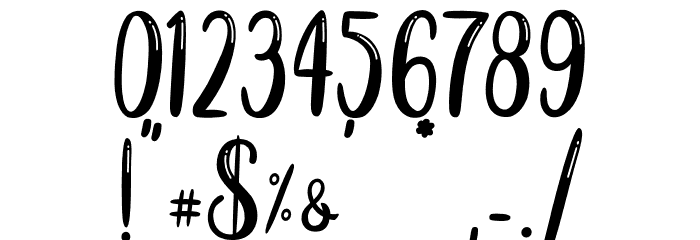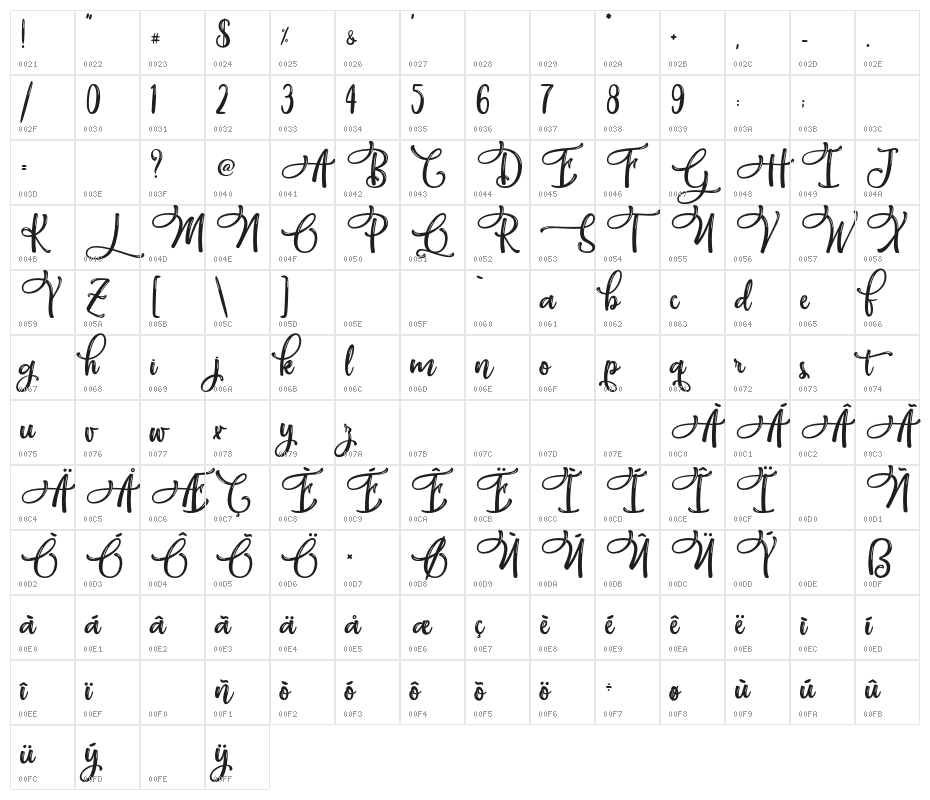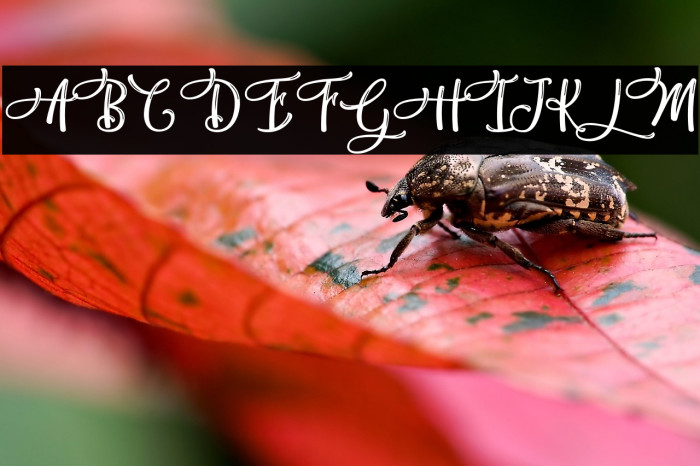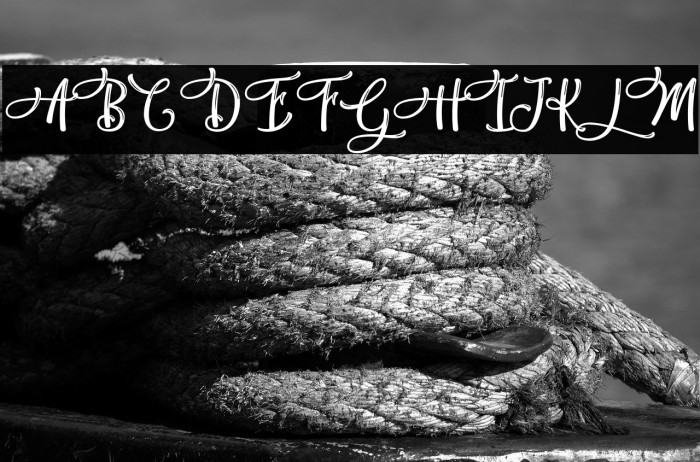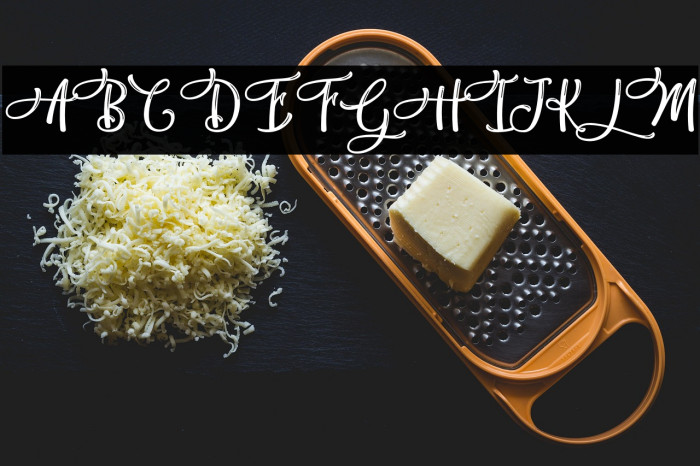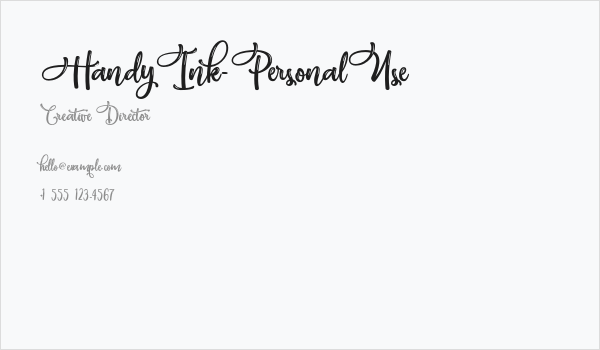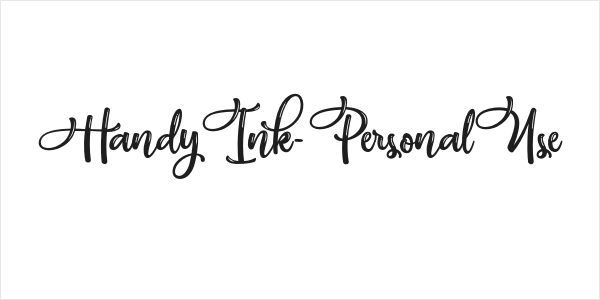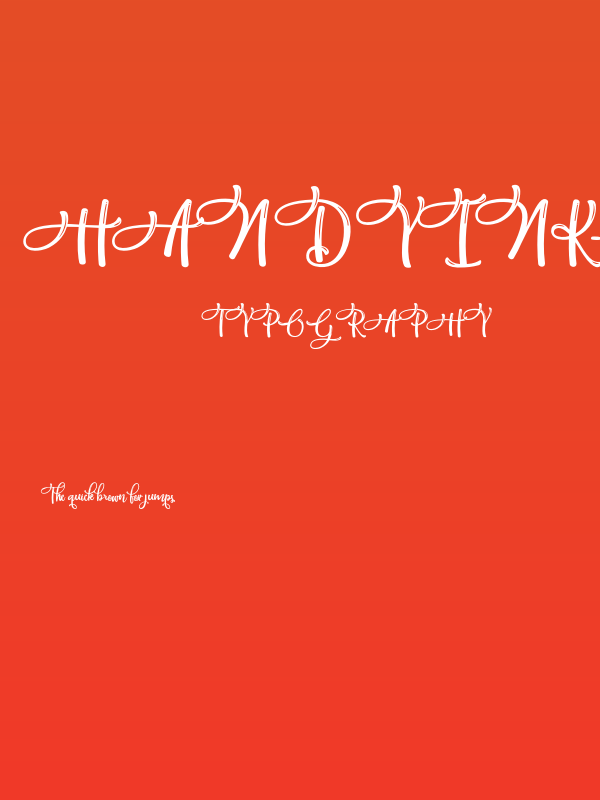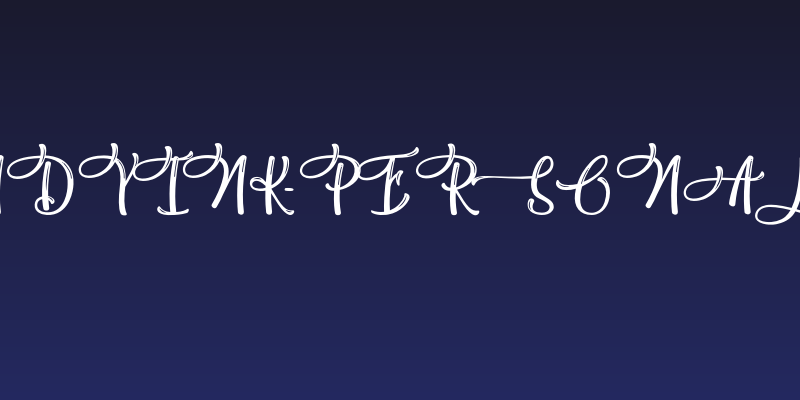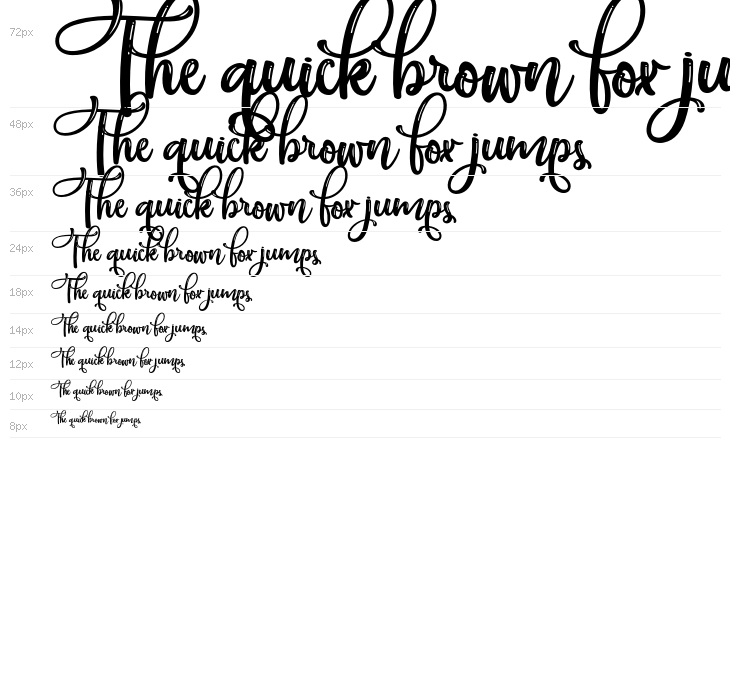
HandyInk-PersonalUse Font
HandyInk-PersonalUse Description
This font exudes a playful and artistic flair, characterized by its flowing, cursive script style. The letters are interconnected with elegant loops and swirls, giving it a handwritten, personal touch. The uppercase letters are slightly more elaborate, with decorative flourishes that enhance their visual appeal. The lowercase letters maintain a consistent style, ensuring readability while retaining their artistic charm. Numbers and special characters are crafted with the same attention to detail, making them cohesive with the overall design. This font is perfect for projects that require a personal, creative touch.
| Use Case | Logos, Invitations, Creative projects |
| Proposed Projects | Ideal for wedding invitations, greeting cards, personal branding, and creative projects. |